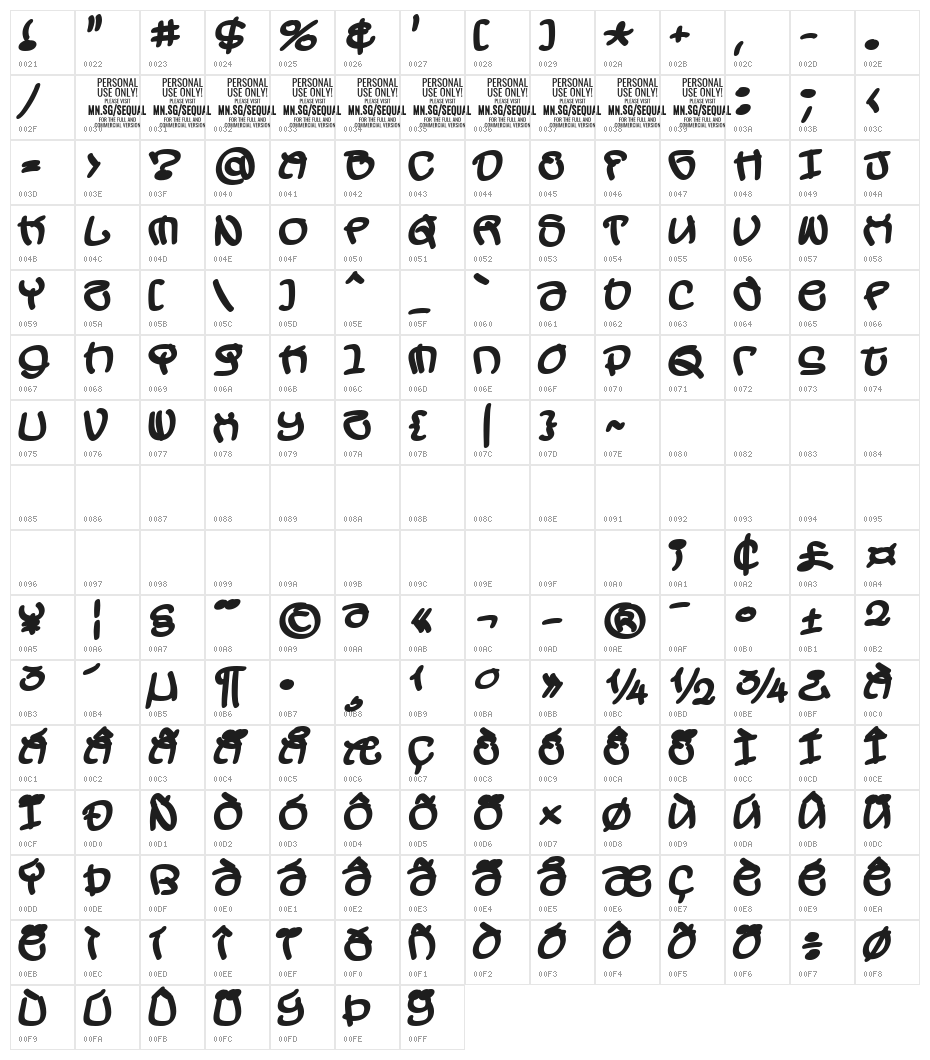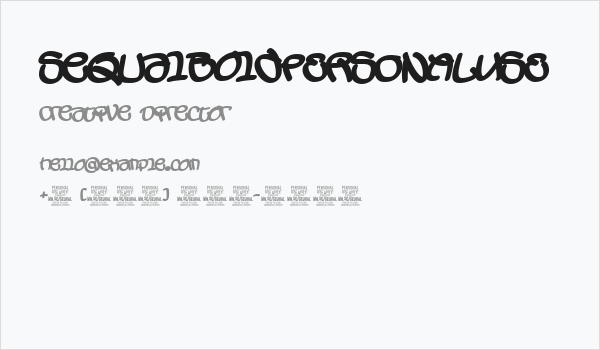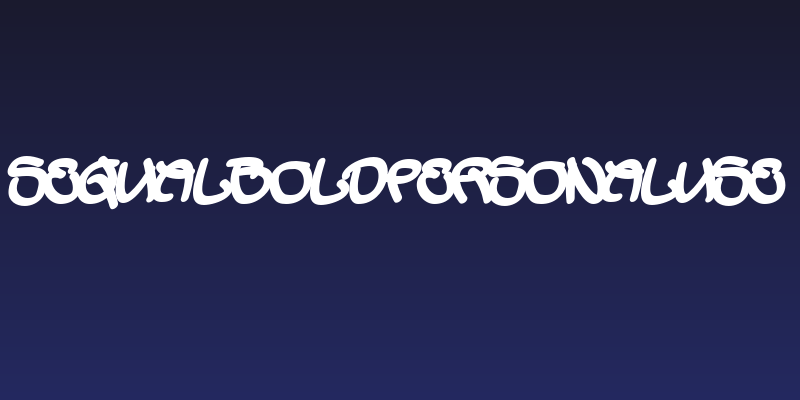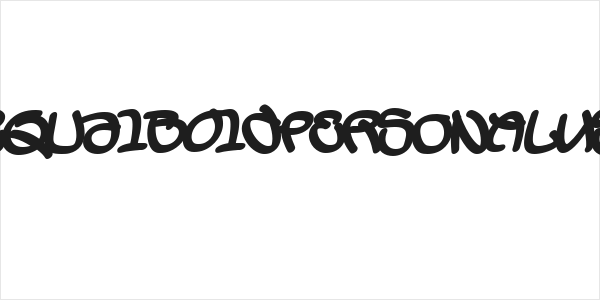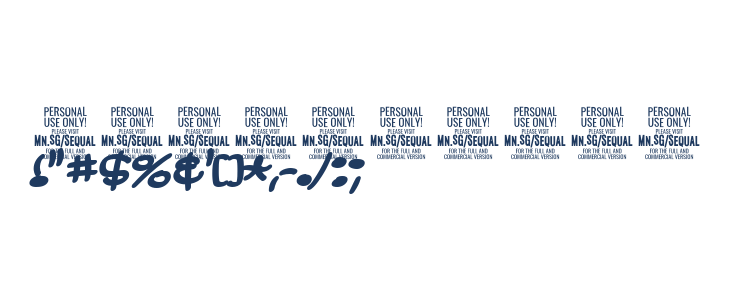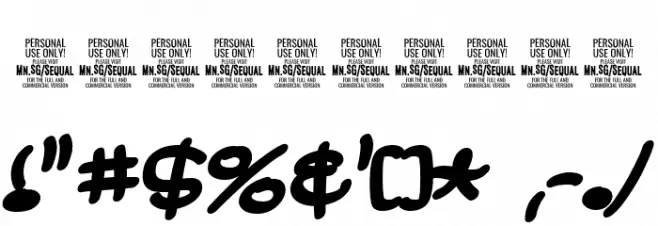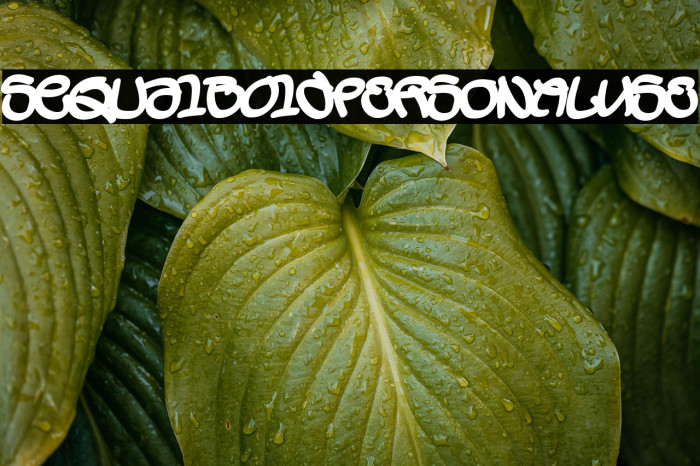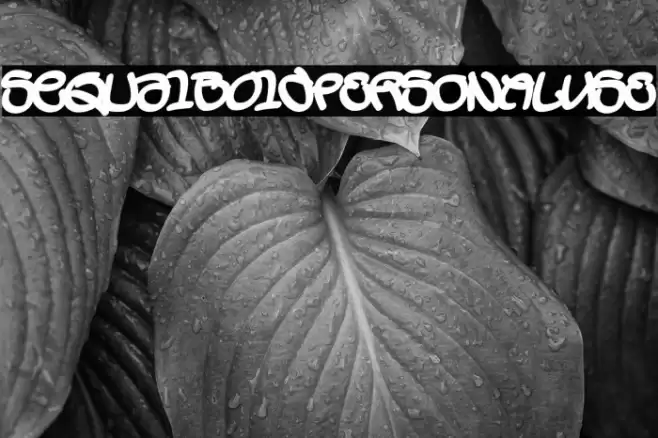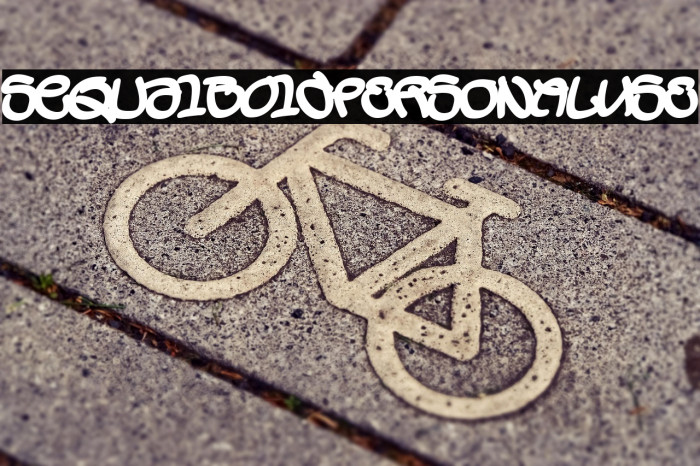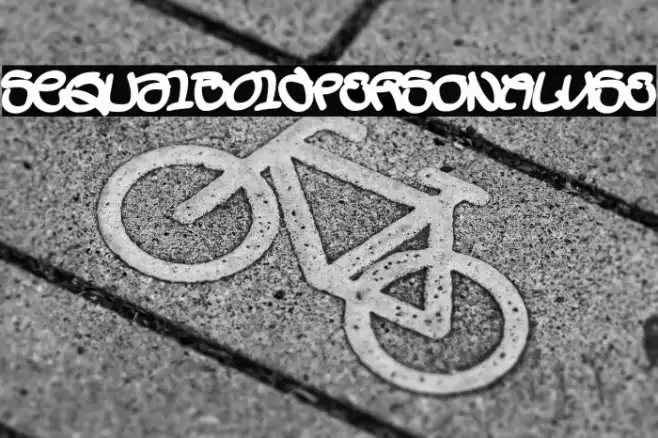
SequalBoldPERSONALUSE Font
SequalBoldPERSONALUSE Description
This font features a bold, expressive style with a strong presence. The characters are interconnected, creating a fluid and dynamic appearance. The strokes are thick and rounded, giving it a playful yet assertive look. The uppercase and lowercase letters maintain a consistent flow, while the numbers and special characters complement the overall design. This font is ideal for making a statement, with its eye-catching and unique form.
| Proposed Projects | Perfect for branding, posters, and creative projects that require a bold statement. |